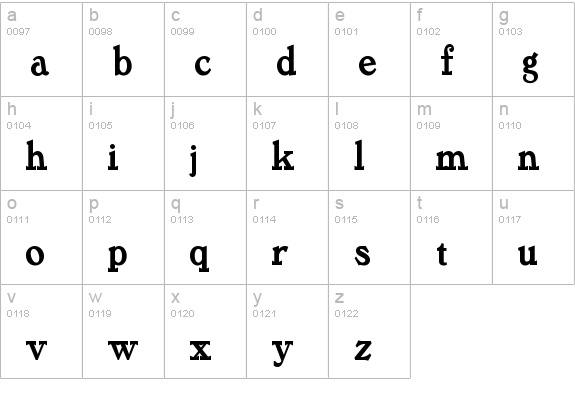
Tanglewood Tales NF Font Details
Introducing Tanglewood Tales NF font, a whimsical and enchanting typeface that brings a touch of magic to your designs. Inspired by fairy tales and fantasy worlds, this font is perfect for creating spellbinding graphics, captivating book covers, and mystical branding. With its elegant curves and intricate details, Tanglewood Tales NF font adds a sense of wonder and mystery to any project. Whether you're designing a poster for a fantasy movie or crafting a logo for a whimsical brand, this font is sure to make your creations stand out. The best part? Tanglewood Tales NF font is available for free download at FontsMarket.com. So go ahead and unleash your creativity with this beautiful and enchanting typeface. Let your imagination run wild and create something truly magical with Tanglewood Tales NF font.